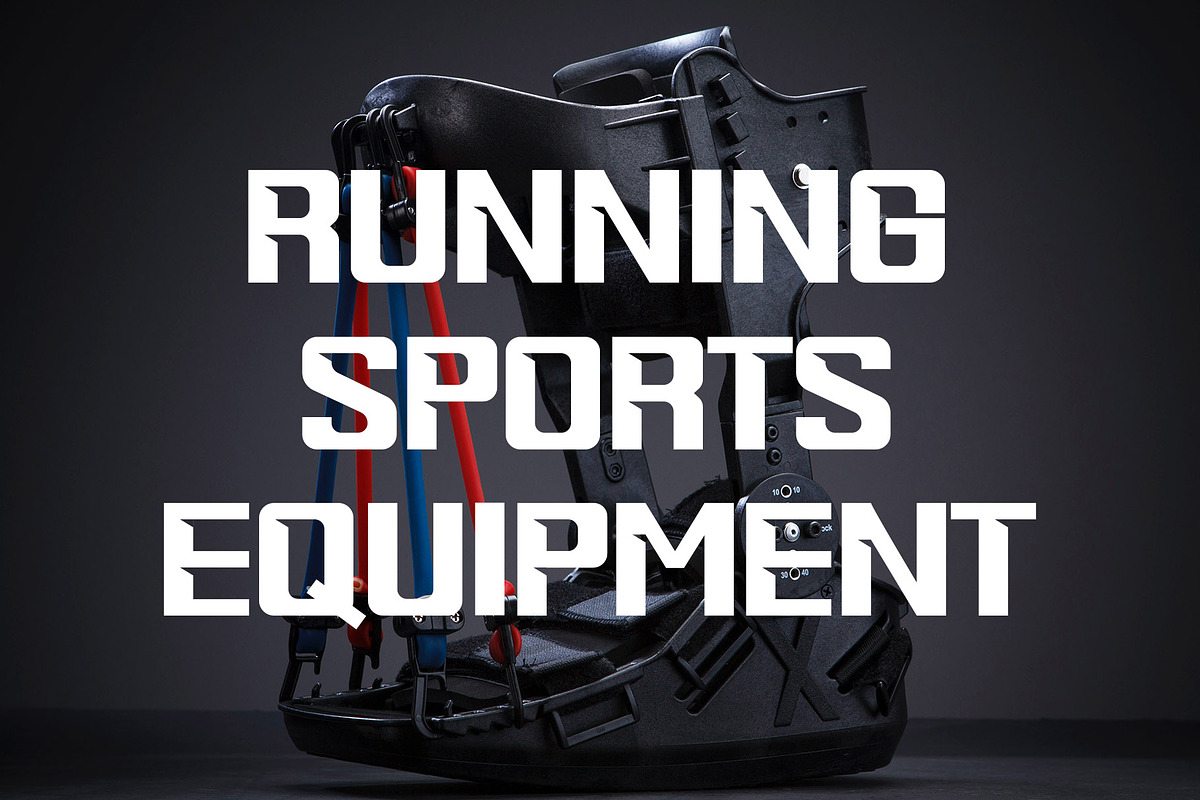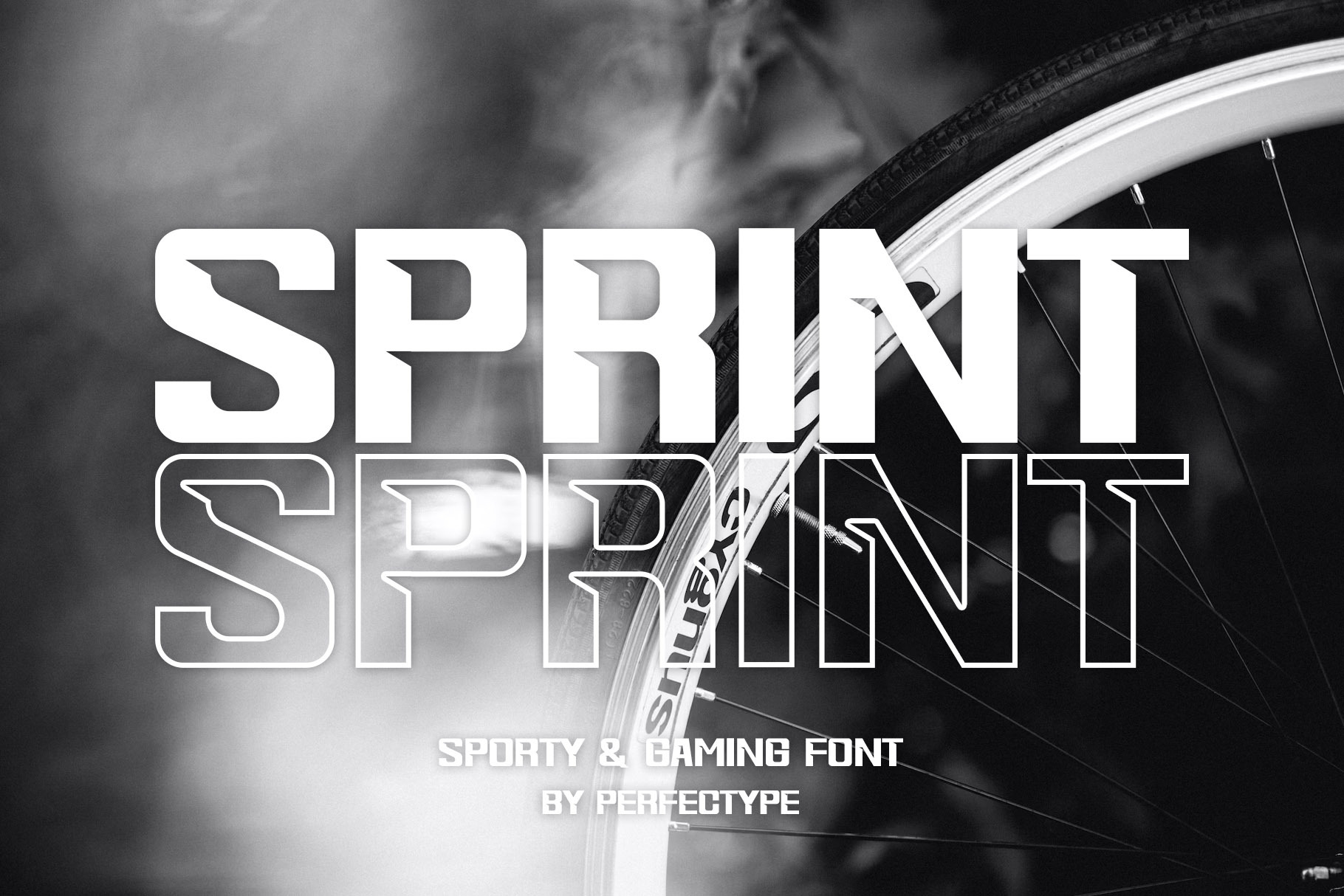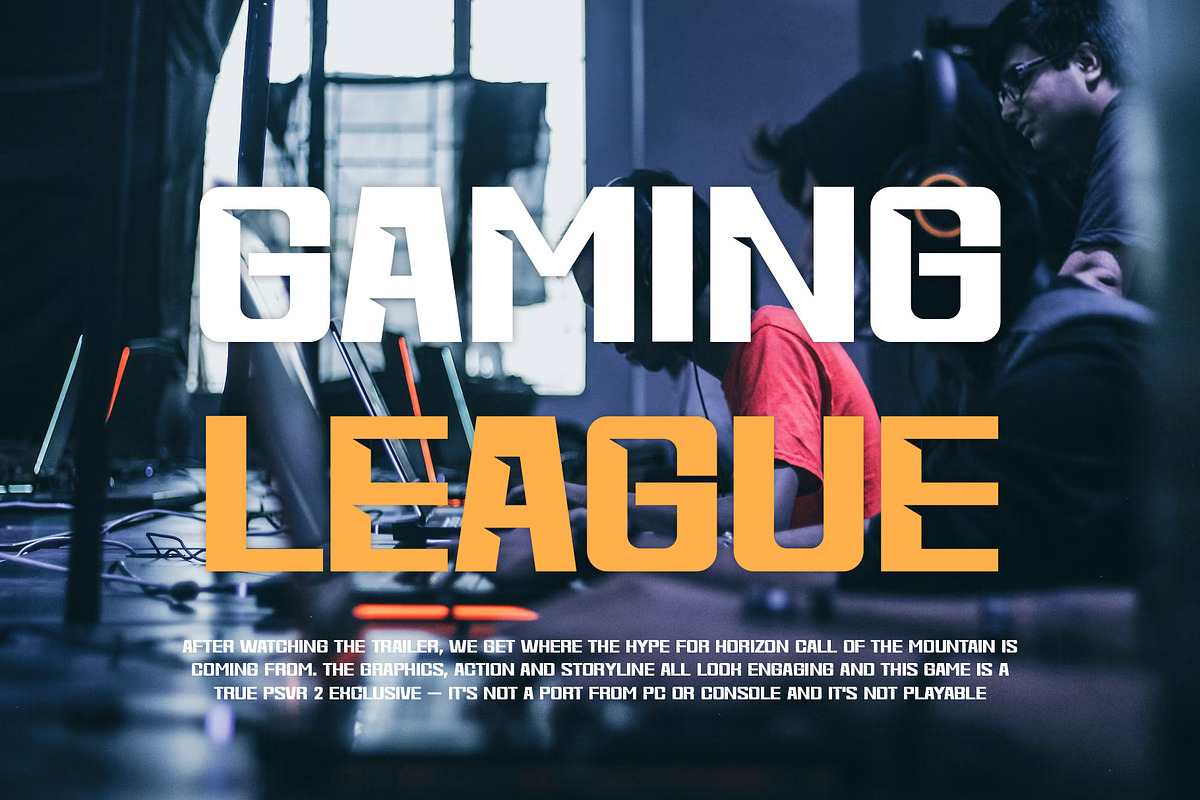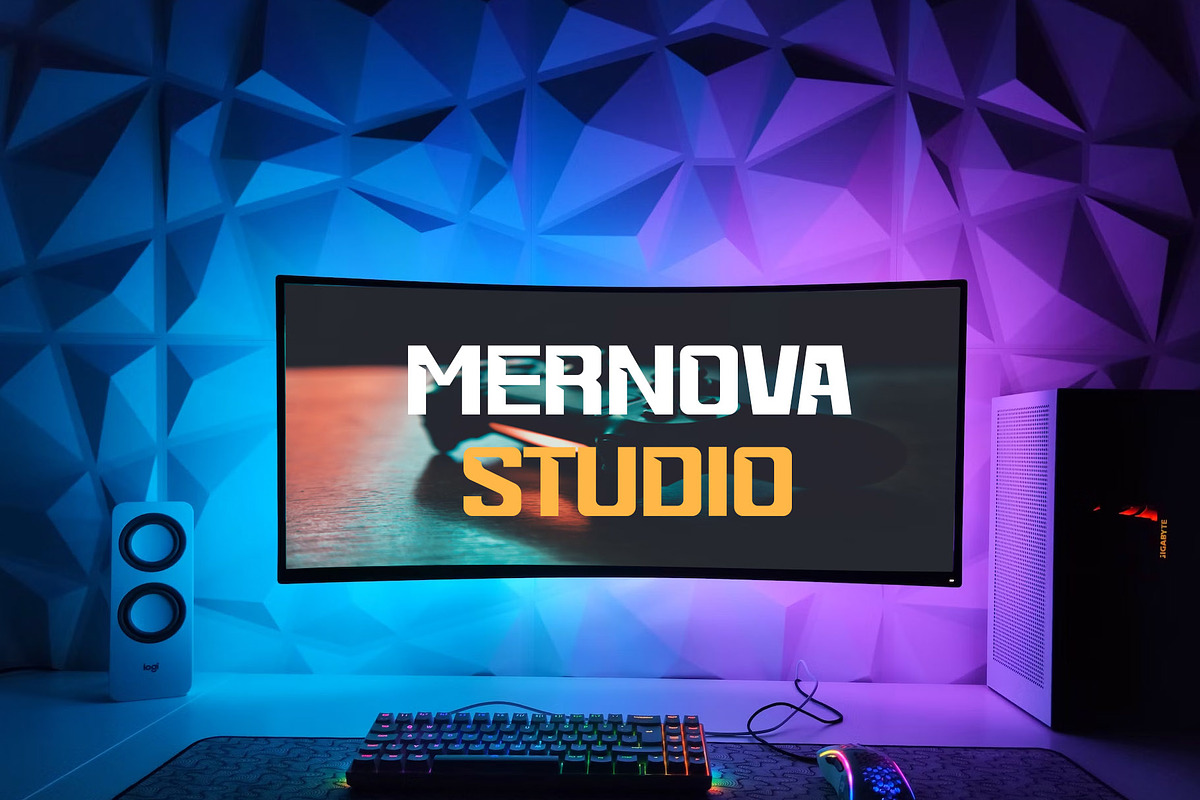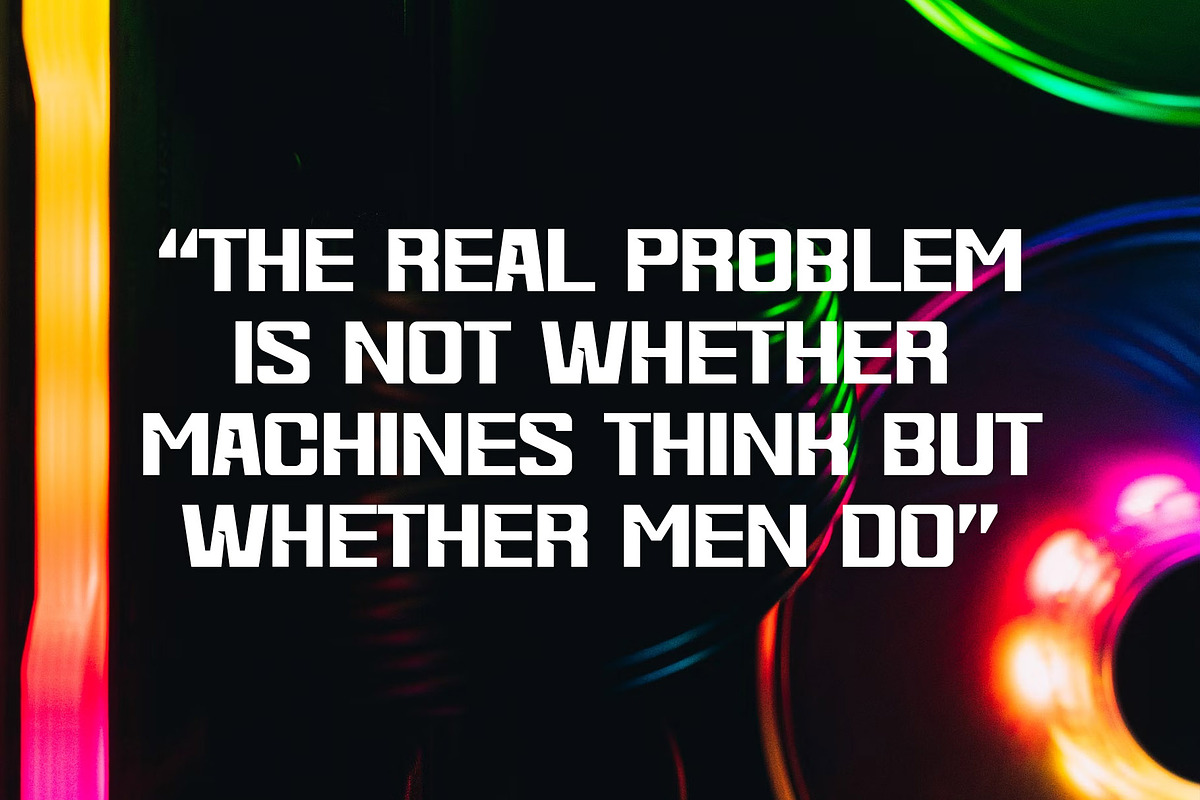
Sprint Modern Sans Serif Font
Sprint Modern Sans Serif Font inspired by the famous minimalist logo perfect for the purposes of designing templates, brochures, videos, advertising branding, logos, invitation, layout design, elegant crafting, beauty design and other